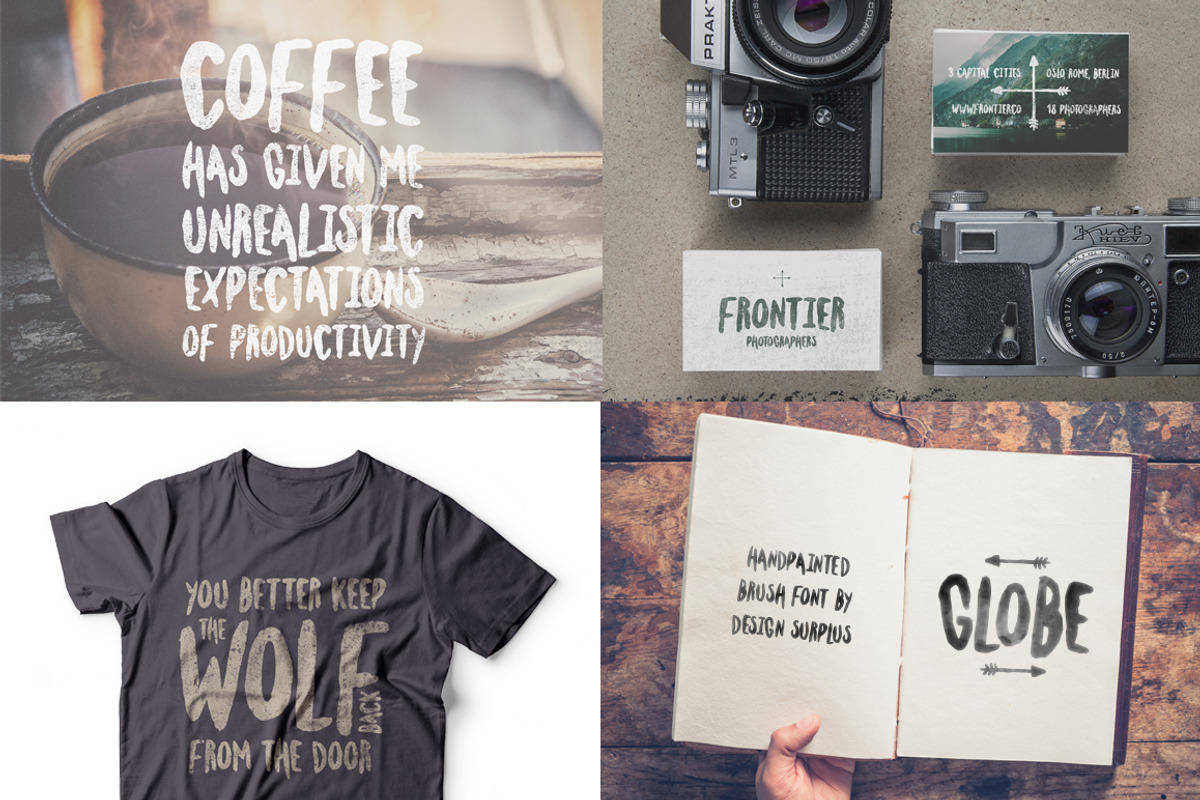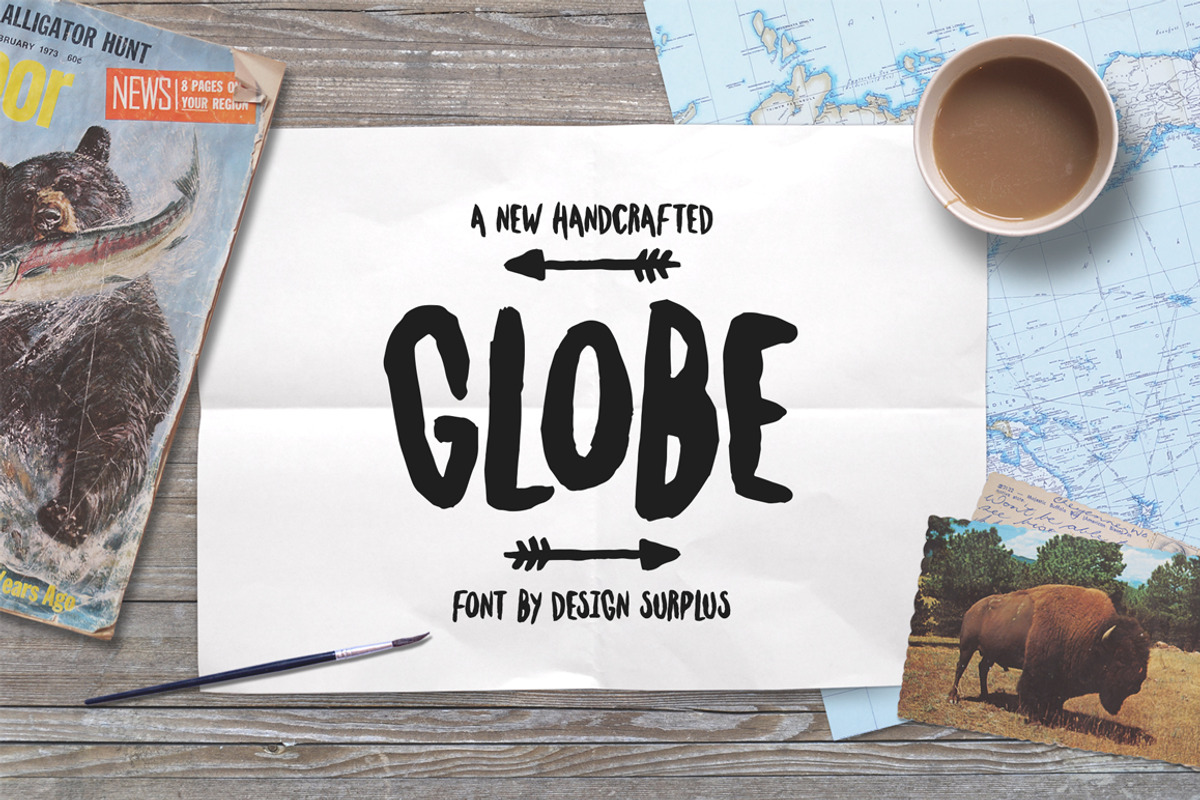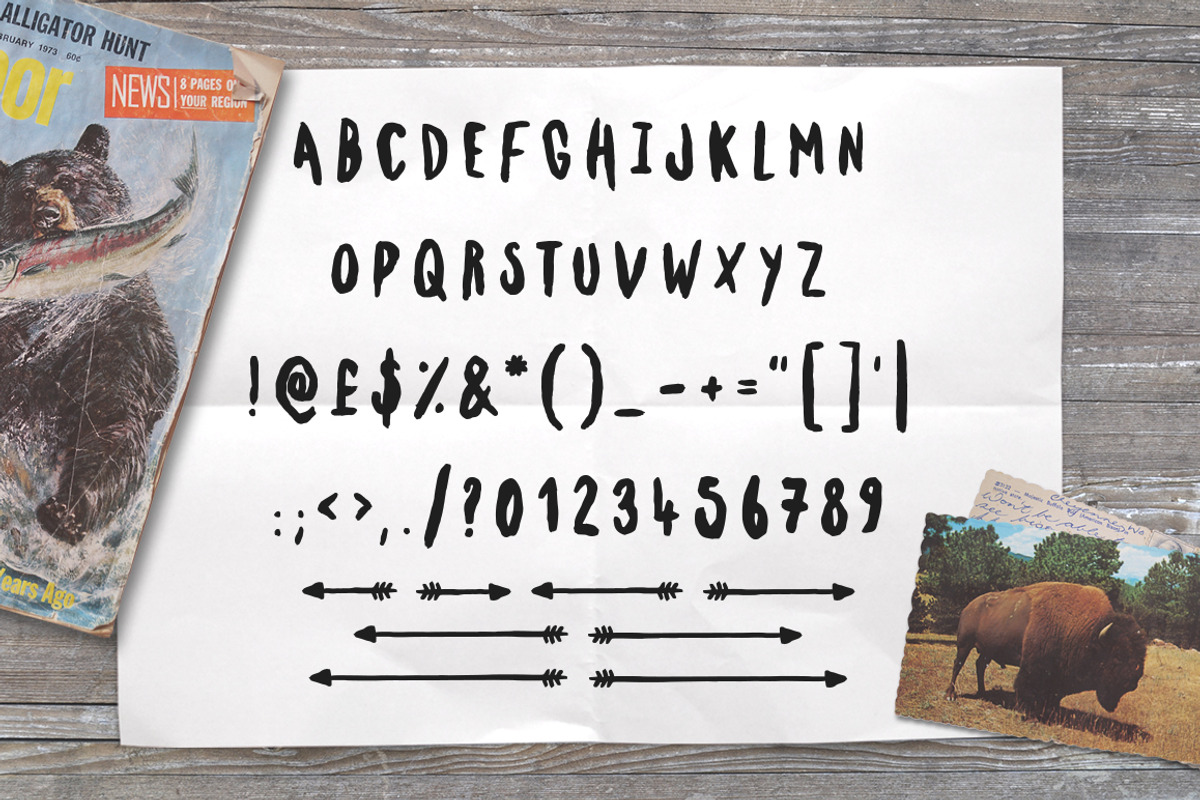
Globe Font
Globe Font by Design Surplus is a font selected for branding, posters, packaging, typography.
- An uppercase font with 4 different length arrows (hit lower keys a, b, c, d, e, f, g, h) that adds character to artwork.
Why Globe Font is worth a look
Globe Font by Design Surplus fits naturally into Branding, posters, packaging, typography.